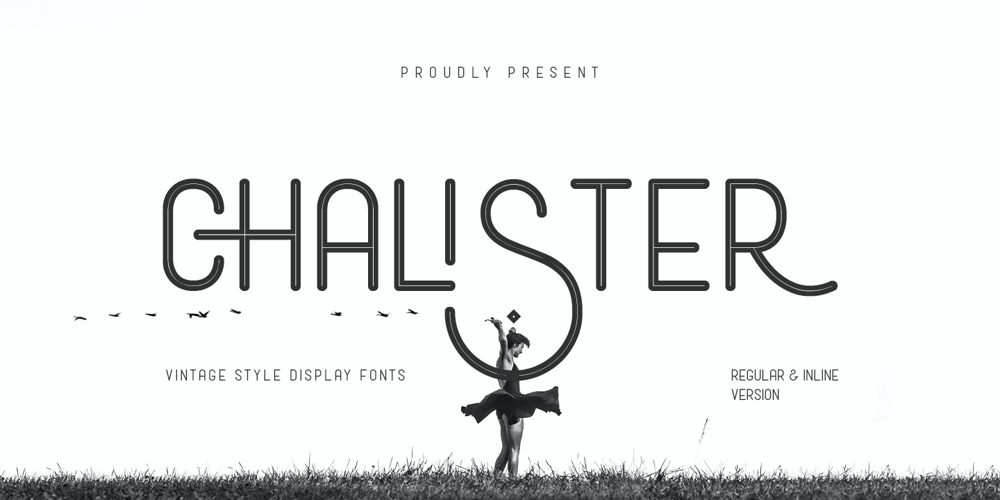
Chalister Font Family was designed by Toni Setiawan and published by Namara Creative Studio. Chalister contains 2 styles and family package options. a classic, clean, and versatile sans-serif font inspired by minimalism contemporary font. Included uppercase, lowercase, numeral, ligatures, alternates and multilingual support. Perfect for headlines, product package / labels, photography, watermark, logos, or any project that requires a classic sans serif.